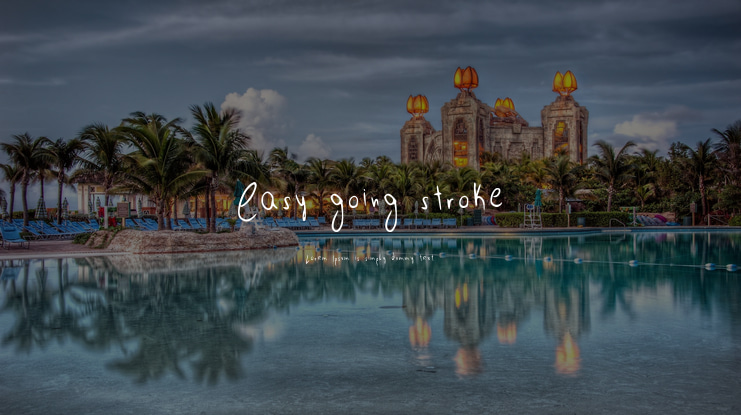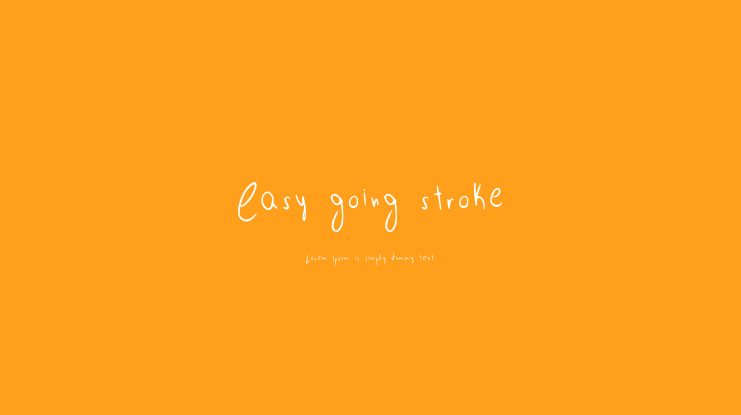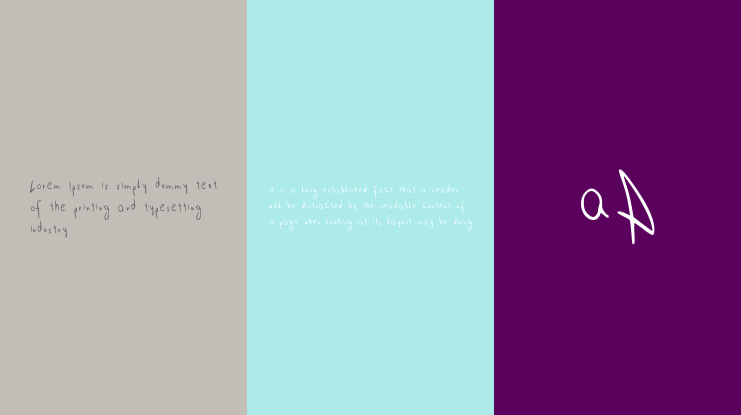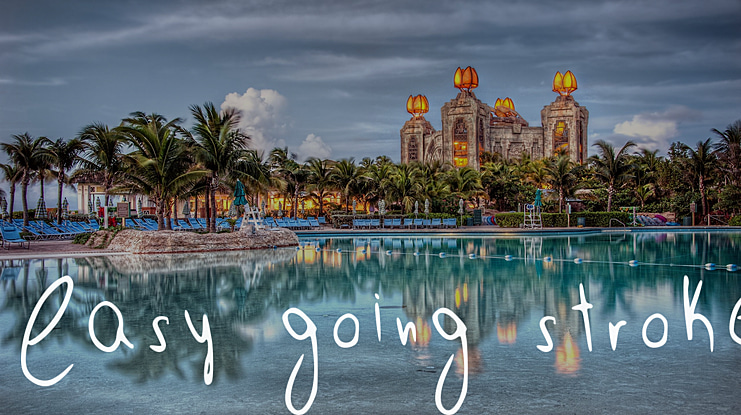
Easy going stroke Font
Take it easy, not made to be perfect, as any handwriting... Completely made in opensource programs, freedom to the core
Originally traced with Glyphtracer